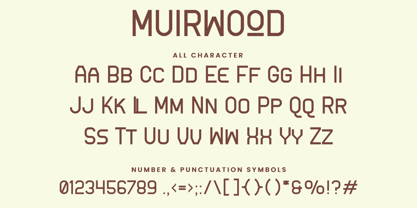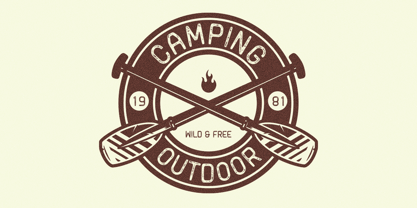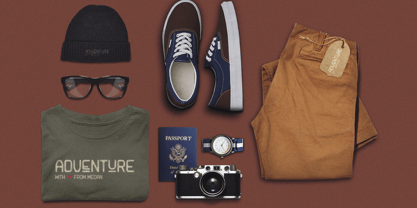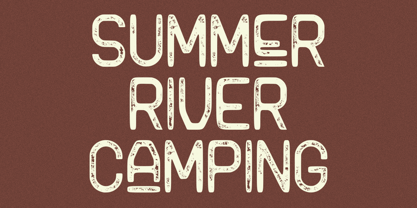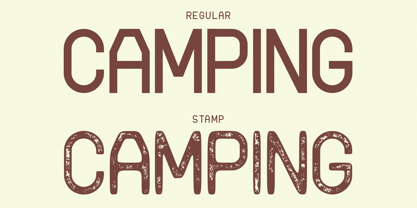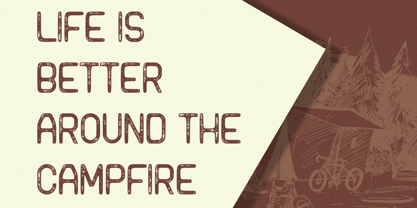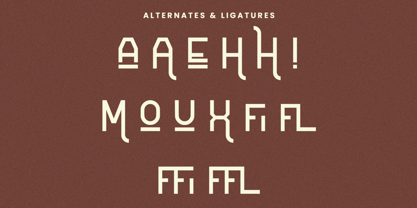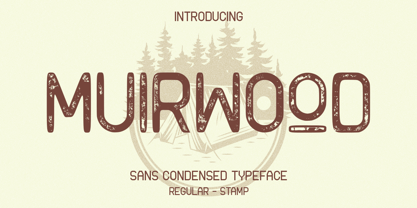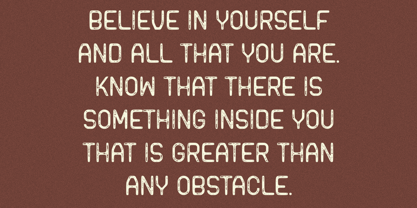
Muirwood
by AQR Studio
The Muirwood Font Family was designed by Muhammad Hidayat and published by AQR Studio. Muirwood contains 2 styles and family package options.
Muirwood – Sans Condensed Font is a beautifully crafted monoline typeface with a sleek, condensed sans style. Born from a love for vintage and retro design aesthetics, Muirwood brings timeless character to modern typography.
Available in two versatile stylesRegular and Stamp — this font features a complete alphabet with stylish ligatures and alternates, providing you with creative freedom and flexibility for any project.
💡 Why Muirwood? Whether you're designing packaging, logos, print materials, or exploring bold and imaginative layouts, Muirwood delivers the perfect blend of clean lines, retro charm, and design adaptability.
Bring nostalgia to life and let your creativity flow — Muirwood is not just a font; it's the voice of your brand’s personality.